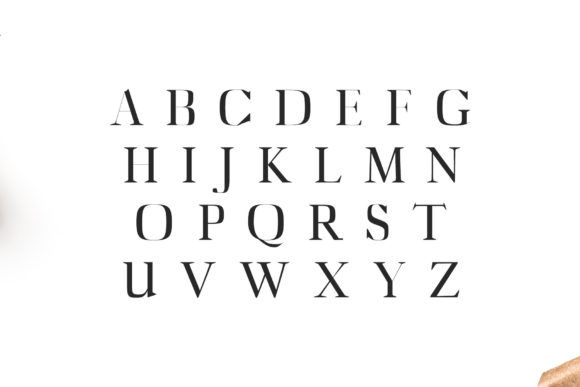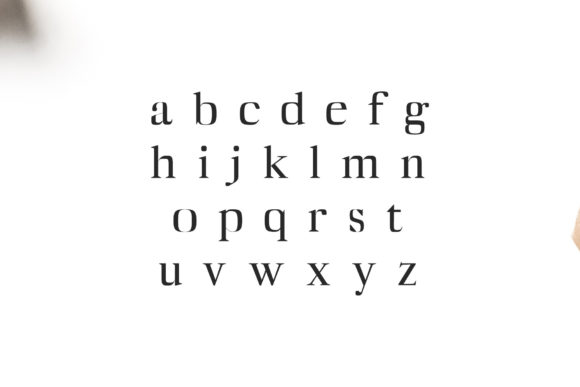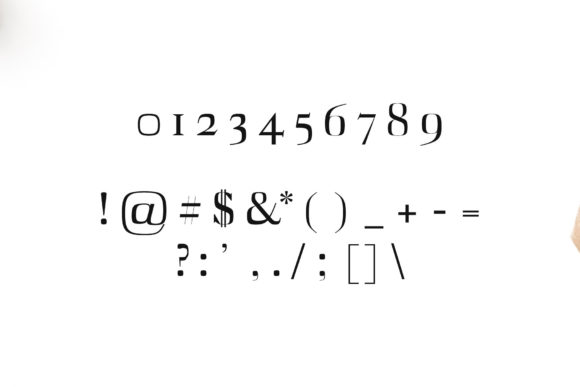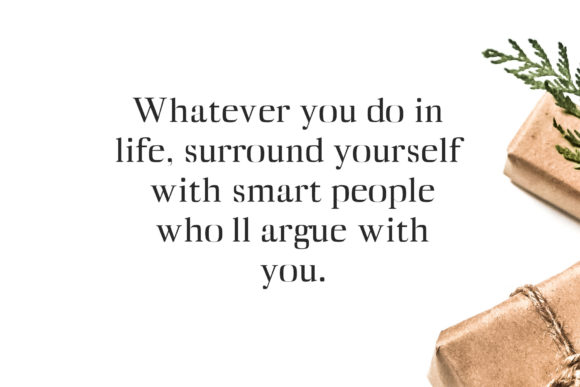
Introducing Abner Font: The Bold and Assertive Serif Font for Creative Masterpieces
Are you tired of using the same old fonts for your creative projects? Look no further! Abner Font is here to revolutionize the way you express your ideas. This bold and assertive serif font is masterfully designed to become a true favorite among designers and crafters. With Abner, you can bring each of your creative ideas to the highest level and make a lasting impression on your audience.
The Power of Abner Font
Abner Font is a game-changer for anyone looking to add a touch of sophistication and elegance to their designs. Its bold and assertive nature makes it perfect for headlines, titles, and any other prominent text that needs to grab attention. The serif details add a level of refinement and luxury, making Abner suitable for high-end branding, advertising, and editorial projects.
What Makes Abner Font Stand Out?
• Bold and Assertive: Abner Font is designed to make a statement. Its bold strokes and assertive presence ensure that your text stands out from the crowd and demands attention.
• Serif Sophistication: The serif details in Abner add a level of sophistication and elegance, making it perfect for projects that require a touch of luxury and refinement.
• Versatile: Abner Font is versatile and can be used for a wide range of projects, from branding and advertising to editorial and packaging design.
• Easy to Read: Despite its bold nature, Abner Font is easy to read, even in smaller sizes, making it perfect for body text and captions.
How to Use Abner Font in Your Designs
Abner Font can be used in a variety of ways to elevate your designs. Here are a few ideas to get you started:
• Headlines and Titles: Use Abner Font to create bold and attention-grabbing headlines and titles that set the tone for your project.
• Branding and Logo Design: Abner Font is perfect for creating logos and branding materials that require a bold and assertive presence.
• Advertising and Marketing: Use Abner Font in your advertising and marketing materials to grab attention and make a lasting impression on your audience.
• Editorial Design: Abner Font can be used in editorial design to add a touch of sophistication and elegance to your publications.
Tips and Tricks for Getting the Most Out of Abner Font
Here are a few tips and tricks to help you get the most out of Abner Font:
• Experiment with Font Sizes: Don’t be afraid to experiment with different font sizes to find the perfect balance for your design.
• Play with Color: Abner Font looks great in a variety of colors, so don’t be afraid to experiment and find the perfect hue for your design.
• Pair with Other Fonts: Abner Font pairs well with a variety of other fonts, so don’t be afraid to experiment and find the perfect combination for your design.
Abner Font is a bold and assertive serif font that is sure to become a true favorite among designers and crafters. With its sophisticated serif details and versatile nature, Abner is perfect for a wide range of projects, from branding and advertising to editorial and packaging design. Whether you’re looking to add a touch of elegance and refinement or make a bold statement, Abner Font is the perfect choice.